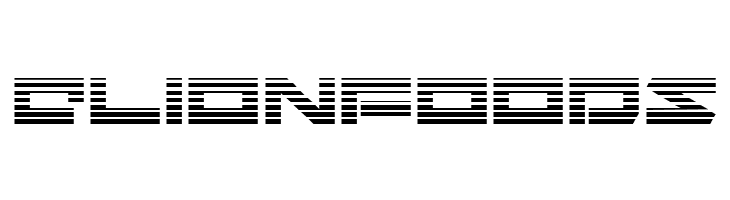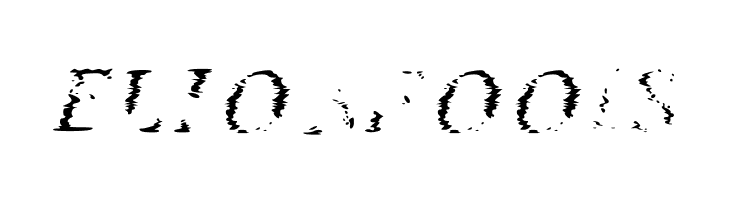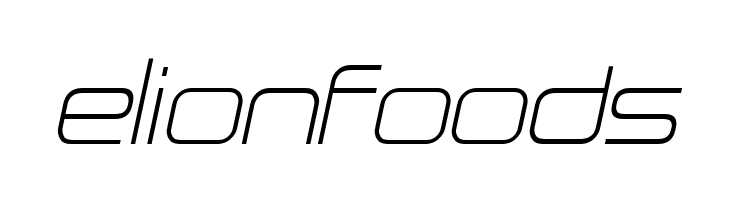
A futuristic, line-based font with a digital and modern aesthetic.
A glitch-inspired font with a fragmented, digital interference style.
A sleek, modern, extra-light italic font with a futuristic and minimalistic design.